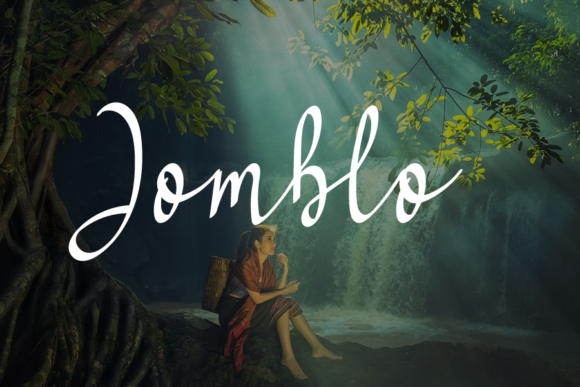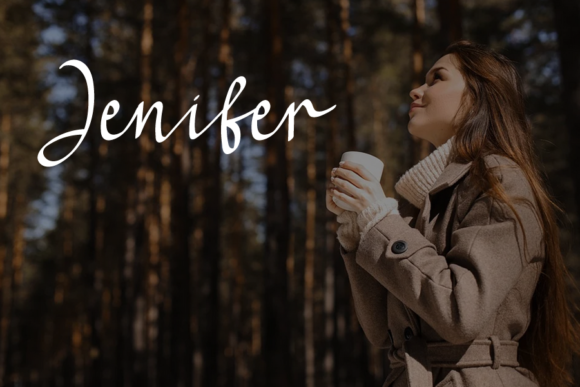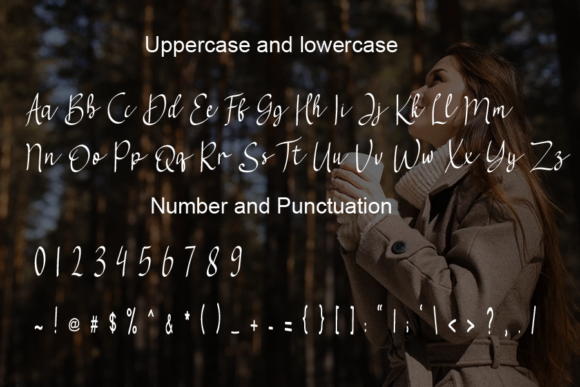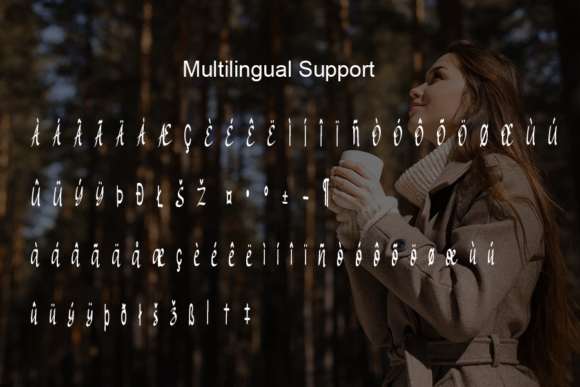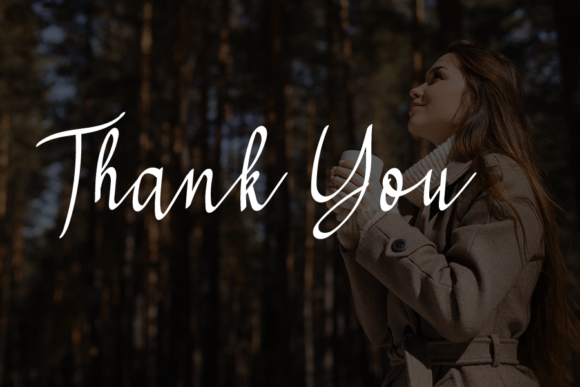
Discover the Charm of Girl Font: Elevate Your Designs with a Lovely Handwritten Style
In the world of typography, few fonts capture the essence of femininity and elegance as beautifully as the Girl Font. This lovely and timeless handwritten font has been making waves in the design community, and for good reason. Its unique blend of sophistication and playfulness makes it the perfect choice for creating eye-catching logos, branding materials, and quotes that leave a lasting impression.
The Beauty of Handwritten Typography
Handwritten fonts have a way of adding a personal touch to any design. They evoke a sense of warmth, approachability, and authenticity that is hard to replicate with more formal typography. The Girl Font takes this concept to the next level with its exquisite, hand-crafted letters that exude a sense of charm and whimsy.
Each letter in the Girl Font has been carefully designed to have a unique and beautiful touch. The subtle variations in line width, the gentle curves, and the delicate flourishes all come together to create a font that is both visually stunning and endearing. Whether you’re looking to create a logo, a social media graphic, or a quote, the Girl Font is sure to bring your design to life.
The Girl Font is a versatile typography that can be used in a wide range of design applications. Whether you’re a professional designer or a crafter looking to add a personal touch to your projects, this font is an excellent choice. Here are just a few ways you can use the Girl Font to elevate your designs:
- Logos and Branding: Create a memorable and eye-catching logo that reflects your brand’s personality with the Girl Font.
- Quotes and Inspirational Messages: Add a touch of elegance and sophistication to your quotes and inspirational messages with this beautiful handwritten font.
- Social Media Graphics: Stand out on social media with stunning graphics that feature the Girl Font.
- Stationery and Invitations: Add a personal touch to your stationery, invitations, and greeting cards with this lovely font.
Why Choose the Girl Font?
With so many fonts available, why choose the Girl Font? Here are just a few reasons why this font stands out from the rest:
- Unique and Beautiful: Each letter has a unique and beautiful touch that will make your design stand out.
- Timeless and Versatile: The Girl Font is a timeless typography that can be used in a wide range of design applications.
- Elegant and Sophisticated: This font exudes elegance and sophistication, making it perfect for designs that require a touch of refinement.
- Easy to Read: Despite its ornate nature, the Girl Font is easy to read, making it perfect for body text and captions.
Tips for Using the Girl Font
To get the most out of the Girl Font, here are a few tips to keep in mind:
- Use it Sparingly: While the Girl Font is beautiful, it can be overwhelming if used excessively. Use it sparingly to create a focal point in your design.
- Pair it with Other Fonts: Experiment with pairing the Girl Font with other fonts to create a unique and visually appealing typography combination.
- Experiment with Colors: The Girl Font looks stunning in a variety of colors. Experiment with different hues and shades to find the perfect match for your design.
In conclusion, the Girl Font is a lovely and timeless handwritten font that is perfect for designers and crafters looking to add a touch of elegance and sophistication to their designs. With its unique and beautiful letters, this font is sure to make your design come alive. Whether you’re creating a logo, a quote, or a social media graphic, the Girl Font is an excellent choice.